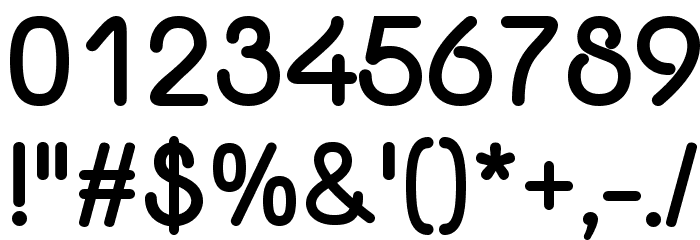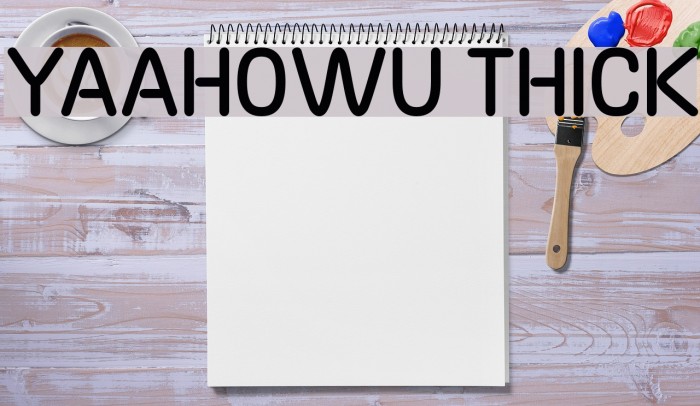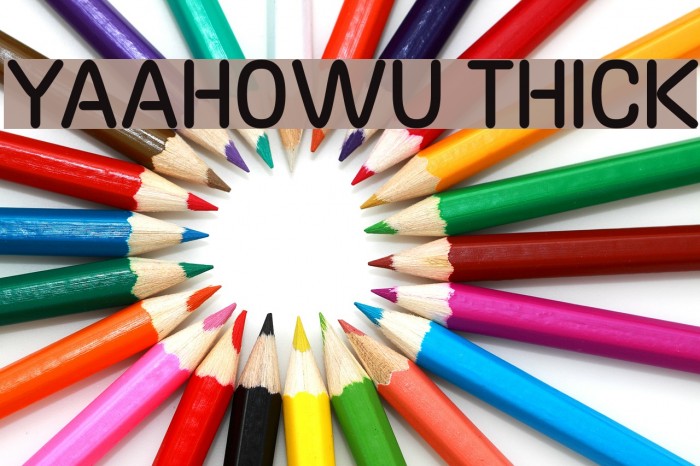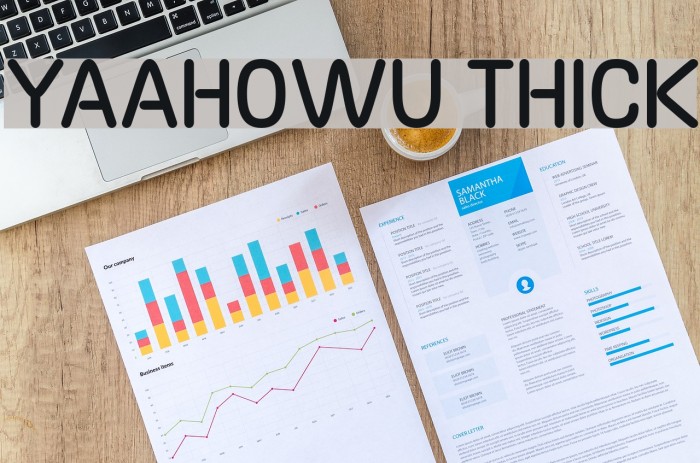
Yaahowu Thick Font
This font features a bold and rounded style, characterized by its smooth curves and uniform stroke width. The letters are evenly spaced, providing a clean and modern appearance. The uppercase and lowercase letters maintain a consistent design, making it easy to read and visually appealing. The numerals and special characters are designed to match the overall aesthetic, ensuring a cohesive look across all text elements. This font's simplicity and clarity make it suitable for a variety of design applications.
A bold, rounded font with smooth curves and uniform strokes.
- Proposed Projects: Ideal for branding, signage, posters, and digital media where a modern and approachable look is desired.
- Use Case: Headlines, Logos, Signage